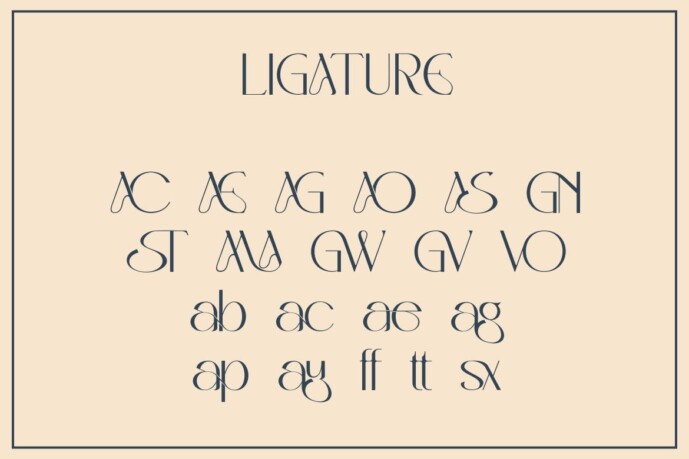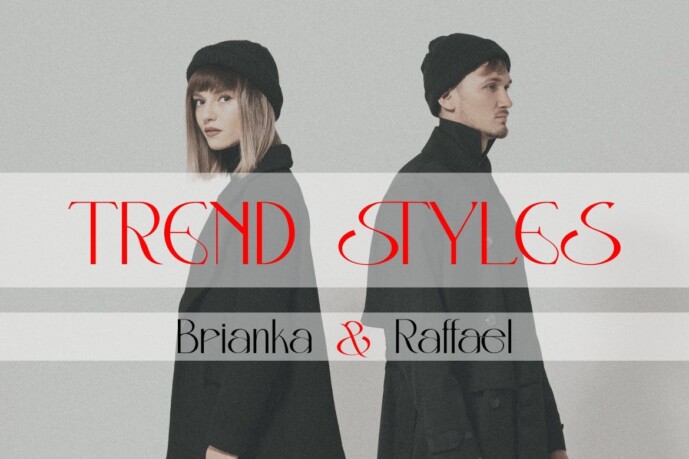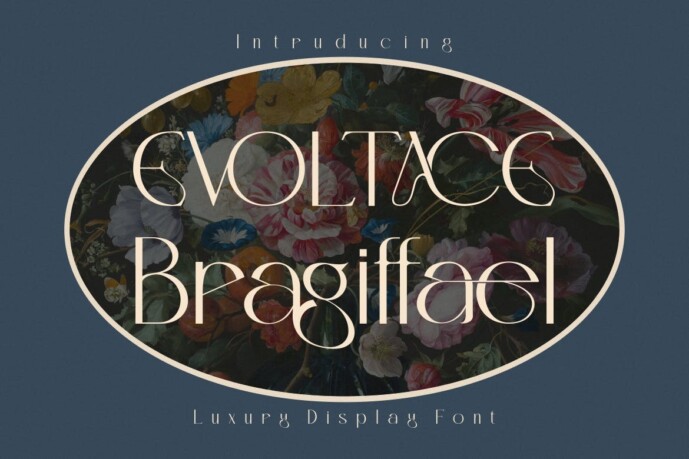
Evoltace Bragiffael Font
Evoltace Bragiffael Font is a modern and authentic font. Perfect for professional and branding needs of a product.
This font is suitable for any branding project like quotes, logo, blog header, poster, banner, letter, invitation, stationery, etc… Designed as a versatile and flexible tool that can be used on a range of projects and media. exceptional in a wide range of contexts.